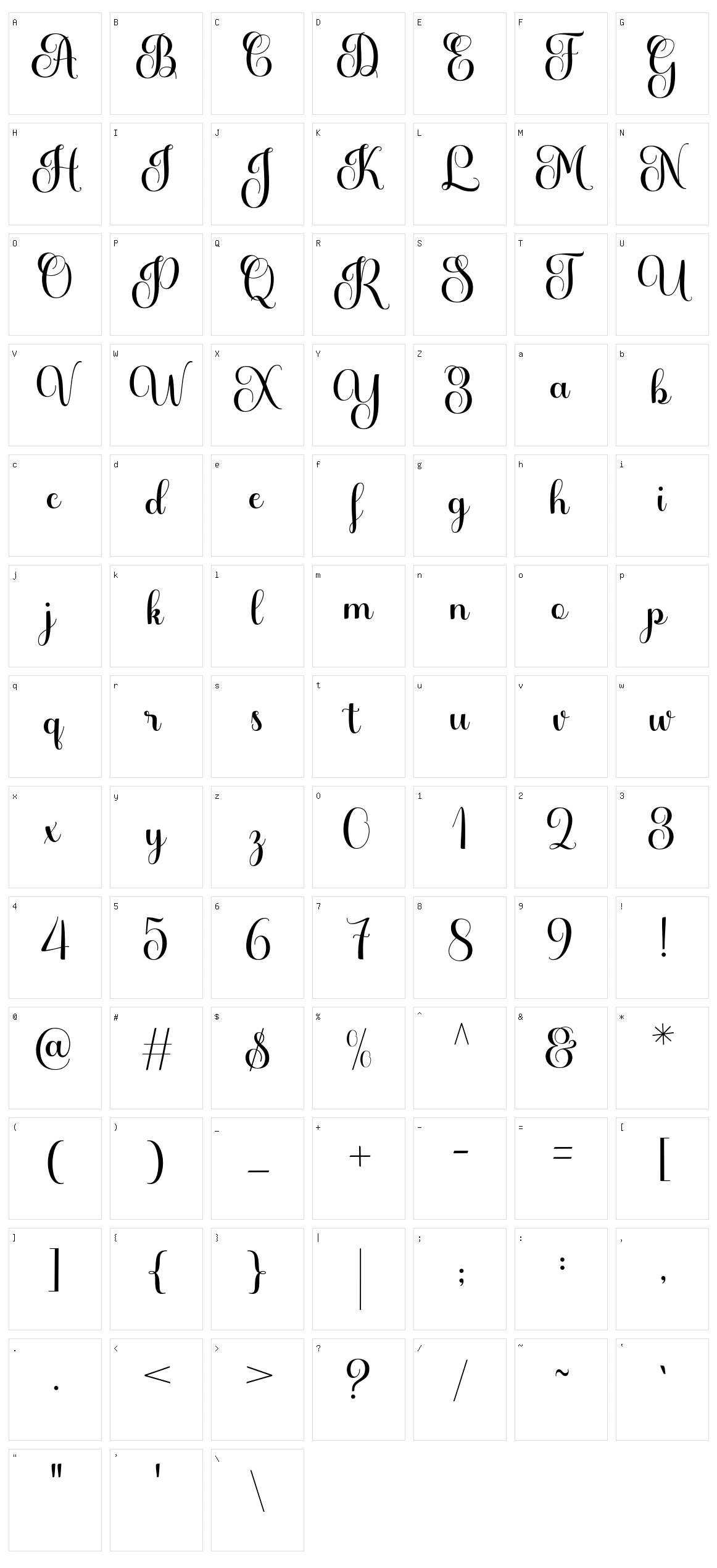
The free font Marcha is carefully designed by Aqeela Studio, showcasing a thoughtful balance of creativity and usability and falls under the Script font style. When you download the ZIP file, it contains only 75.09 KB of font files, making it lightweight and quick to download. Please review the license details below to understand permitted usage and distribution rights. If license information is not available, we recommend using this font for personal projects only or contacting the author directly for commercial usage permissions.